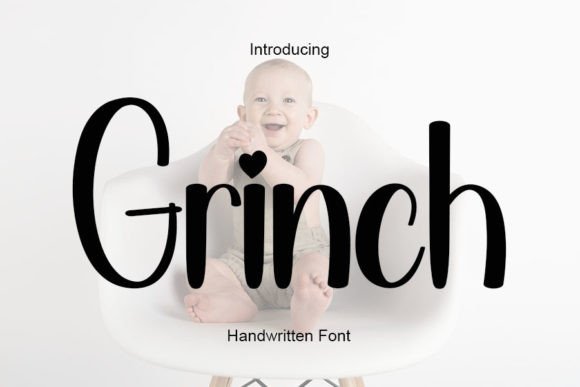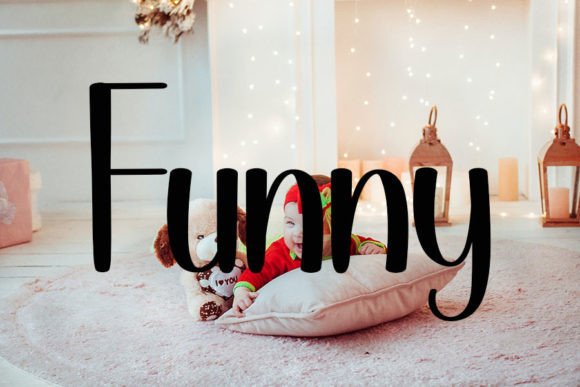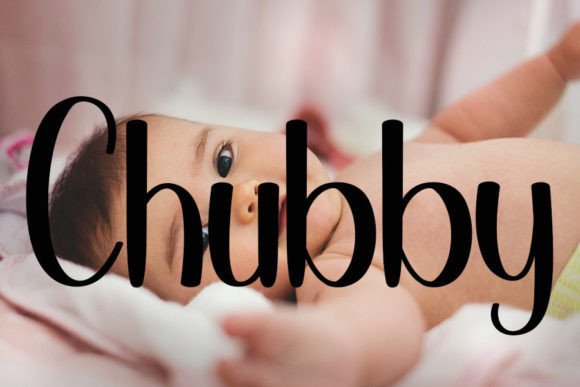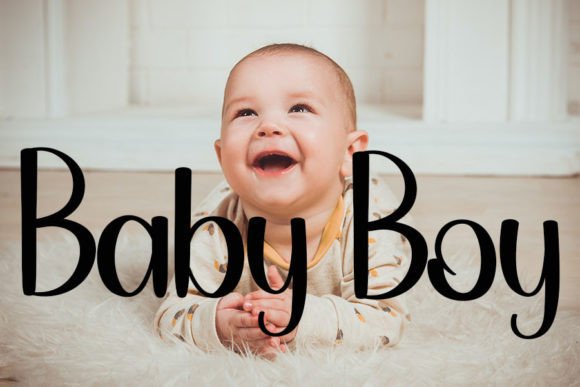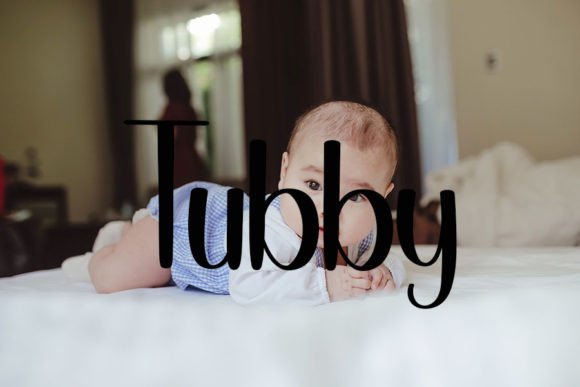
A Neat and Elegant Handwritten Font
Grinch is a refined handwritten script font crafted to bring elegance and charm to any design. With its smooth lines and graceful strokes, this font has a timeless quality that makes every project feel polished and unique. Whether you’re working on personal branding, wedding stationery, or social media graphics, Grinch ensures your work looks professional and memorable.
Its clean look makes it versatile enough for both formal and casual designs.
Grinch is a font you’ll find yourself using again and again. It’s ideal for wedding invitations, RSVP cards, and thank you notes. The handwritten style creates a romantic and personal feel that elevates any event.
For branding, Grinch is perfect for logos, business cards, and packaging. The elegant script adds sophistication to your brand, making it stand out from the crowd.
This font also works beautifully for quotes, greeting cards, and personal projects. Its graceful lines bring warmth and authenticity to any message.
Grinch is also great for social media. Whether you’re creating Instagram posts, Pinterest graphics, or blog headers, this font helps your content look stylish and cohesive.
Despite its artistic details, Grinch is clear and highly legible. Balanced spacing between letters and smooth connections keep your text neat and easy to read, even in small sizes.
For the best results, pair Grinch with a minimalist sans-serif font. Use Grinch for headings or featured text, and the sans-serif font for body copy. This combination creates a clean, modern look that feels balanced and professional.
To highlight Grinch’s elegance, use soft color palettes and neutral backgrounds. Light shades like ivory, blush pink, and warm gray make the font stand out without feeling overwhelming.
For wedding materials or branding, consider adding delicate illustrations or simple flourishes. These details enhance the handwritten feel without cluttering the design.
On social media, use plenty of white space to keep your content clean and inviting. Grinch works best when it’s given room to breathe.
Think about the mood you want to create. Grinch is perfect for designs that should feel timeless, warm, and sophisticated.
Grinch isn’t just a handwritten font—it’s a creative tool that helps you make your projects feel elegant and personal. From weddings to business branding, this font adapts seamlessly to any use.
Adding Grinch to your font collection ensures you always have a reliable option when you want to create something refined and unique. Whether you’re designing logos, invitations, or social media posts, Grinch adds a touch of sophistication to every project.